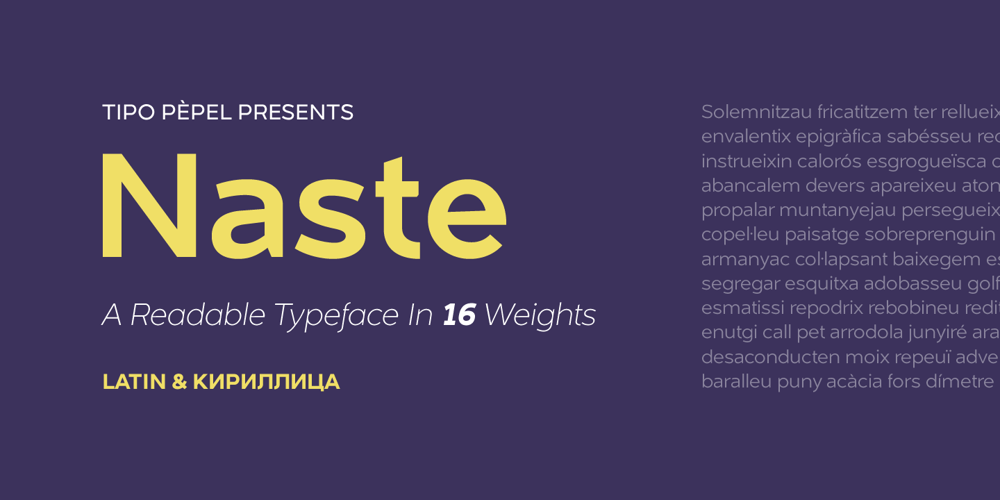
Naste Font Family was designed by Josep Patau and published by Tipo Pèpel. Naste contains 16 styles and family package options. Tipo Pèpel strikes again with a lush splurge on pure basic geometrical shapes and sizes, those that inspired Paul Renner’s typographic milestone “Futura”. A new look to classic shapes, bringing them back plenty of delightfullly details as the lowercase cursive forms’ long tiles that break the supposed linearity expected from a purely geometrical font. Rhythm given by hidden details in each character of each weight, push “Naste” out of German geometric sobriety, will help us to easily create typographic hierarchies upon the many weights available and the many and accurate details. Excellent results with minimal effort. Wide ‘x’ height, restrained ascending and descending stems; thick but elegant, easy to read and in need of generous white space around, where it feels comfortable. More is better than less. As usual in Type Pépel, full sets of Opentype alternatives and Unicode support for 104 languages plus Cyrillic. 16 weights of typographic beauty in all its glory.